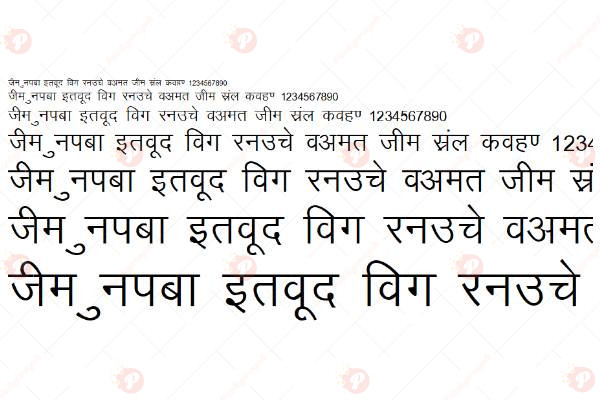
The Devlys Normal Font is a clean and versatile typeface, perfect for body text, headings, posters, logos, branding, and digital or print projects. Its balanced and readable design ensures clarity while adding a professional touch to any creative work.
Ideal for digital and print designs, Devlys Normal brings elegance and simplicity to your projects, making every design look polished and professional.
Style: Regular / Normal / Versatile Typeface
Perfect for: Body Text, Headlines, Posters, Logos, Branding & Digital Projects